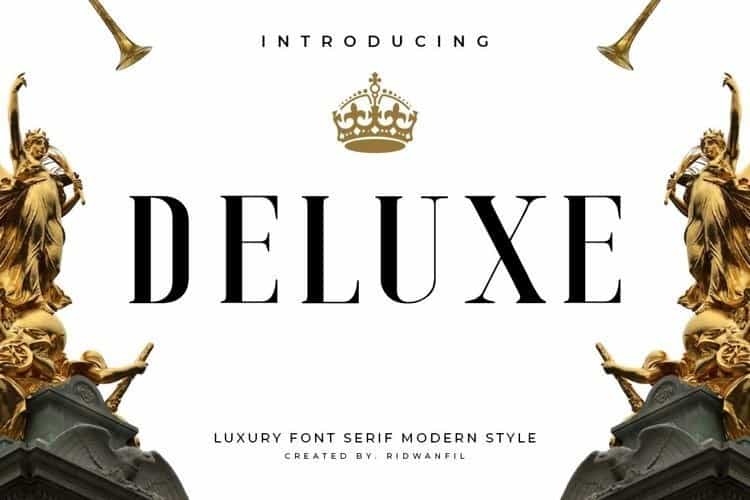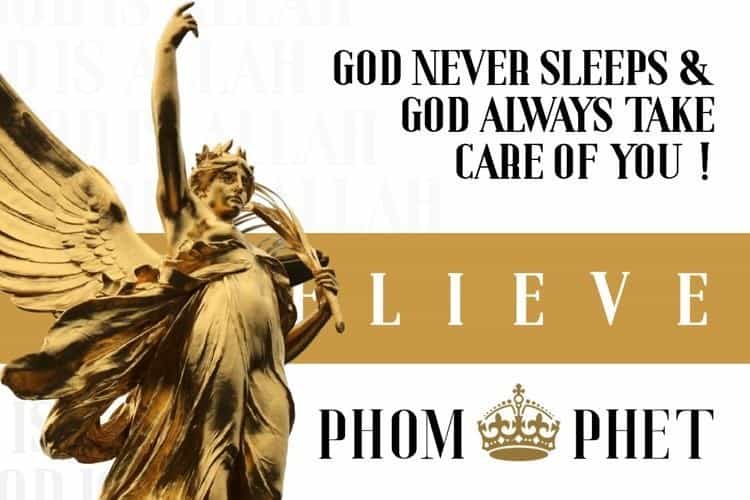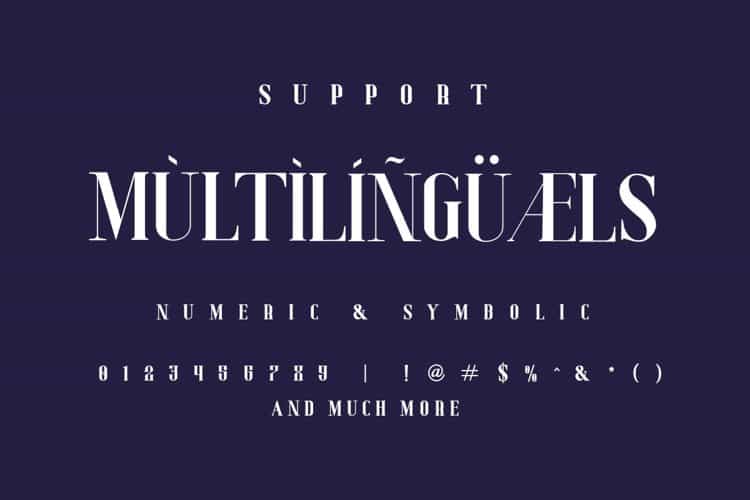
The Deluxe font family is described as modern with a touch of futurism and luxury. It’s key characteristics are the strokes squared shapes of round letters and a sophisticated business like vibe. The unique stylistic set of Deluxe Font Family offers a look to uppercase and lowercase letters well as multilingual support.